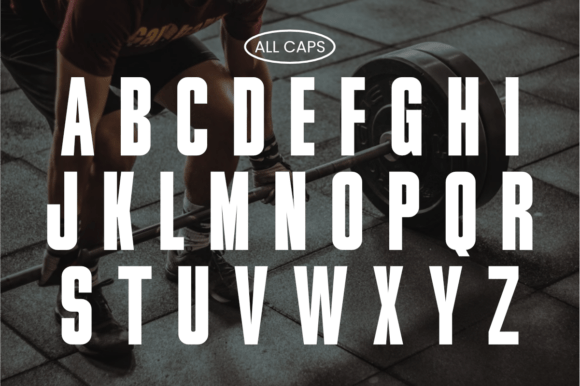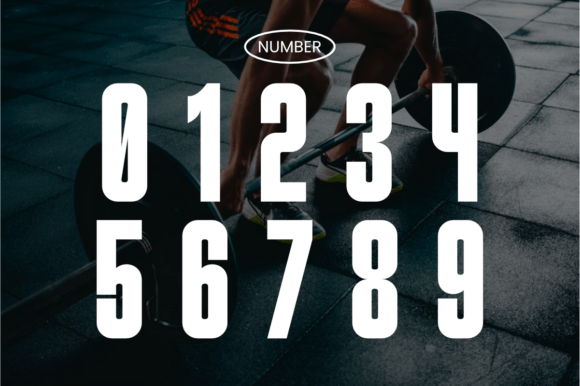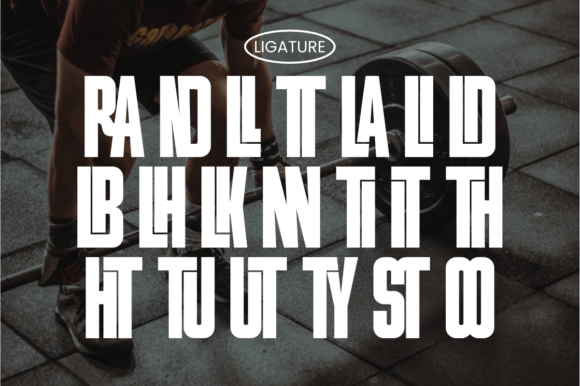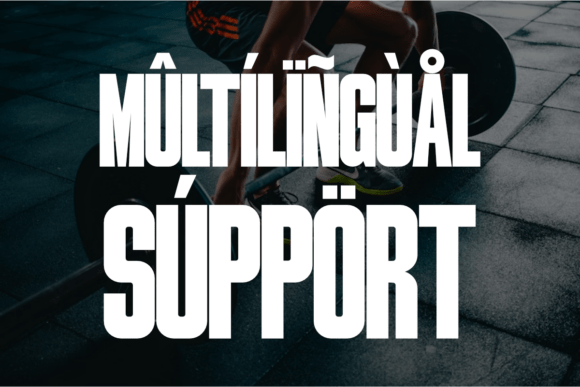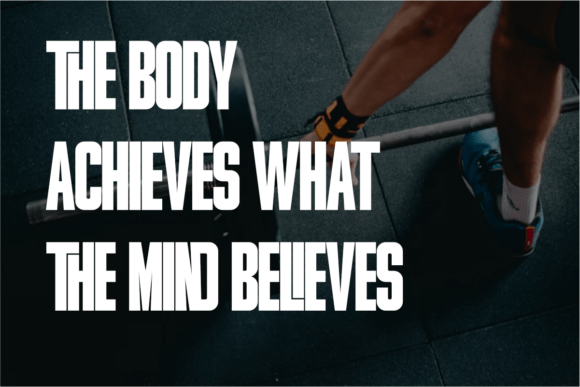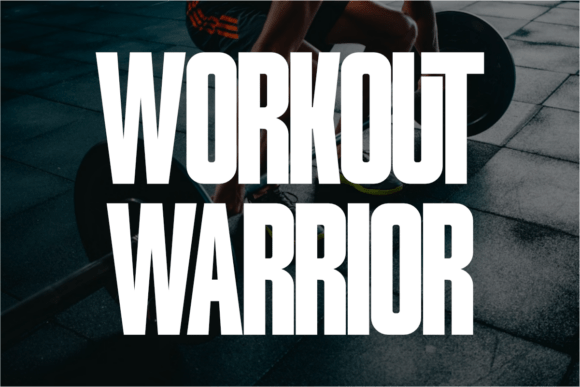
Unleash Your Creativity with the Power of Typography
Have you ever been in the midst of a creative project, pouring your heart and soul into every detail, only to feel like something’s missing? That’s when the perfect font can make all the difference. For designers and makers, the right typography can elevate a design from good to great, and that’s exactly what Brandon Font is designed to do.
Brandon Font is an ultra-condensed sans serif font that packs a punch with its bold and striking letterforms. Its tall and powerful style is perfect for making a statement in digital and print media. Whether you’re designing t-shirts, posters, logos, or branding materials, Brandon Font is the ideal choice for creating a modern and eye-catching look.
Brandon Font Key Features
- Unique Characteristics: Brandon Font is a modern sans-serif typeface, characterized by its clean lines, geometric shapes, and high x-height. It is designed to be highly legible and versatile for use in digital and print media.
- Font Weight: Light, Regular, Medium, Bold, Black
- Font Style: Brandon Font has a range of font styles, including Roman, Italic, Bold, and Bold Italic
Designer Review: Brandon Font
Overall, the Brandon Font is a decent addition to any design project. It’s a versatile font that can be used for various purposes, from headings to body text.
- ✨ Elegant and sophisticated appearance that’s perfect for luxury brands or high-end products.
- ✨ Highly legible, making it suitable for long-form content or documents.
- ✨ Supports multiple languages, including English, Spanish, French, and many others.
- ⚠️ May not be the best choice for digital displays or small screens, as it can appear pixelated or blurry.
- ⚠️ Some users may find the font too ornate or busy for certain designs.
Overall, I would give the Brandon Font 3.5 out of 5 stars. It’s a solid choice for designers who need a high-quality font for their projects, but it may not be the best fit for every design. With its elegant appearance and high legibility, it’s definitely worth considering for the right project.
Tips: Use the Brandon Font for headings and titles to add a touch of elegance and sophistication to your designs. Experiment with different font sizes and styles to create visual interest.
Tips: Use the Brandon Font for headings and titles to add a touch of elegance and sophistication to your presentations and documents.
The Brandon Font is ideal for:
- Business cards and branding materials
- Restaurant menus and signage
- Special event invitations
Alternatives to Brandon Font
Montserrat is a modern sans-serif font designed for digital use. It’s ideal for headings and titles due to its clean and geometric design. When to use: Headings, titles, and short paragraphs. Montserrat is similar to Brandon Font in its modern and sleek appearance but has a more geometric feel.
Lato is a sans-serif font with a friendly and approachable feel. It’s suitable for body text and can be used for a wide range of applications. When to use: Body text, paragraphs, and articles. Lato is similar to Brandon Font in its clean and minimalist design but has a more rounded and friendly feel.
Open Sans is a popular sans-serif font designed for digital use. It’s highly legible and versatile, making it suitable for a wide range of applications. When to use: Body text, paragraphs, and articles. Open Sans is similar to Brandon Font in its clean and modern design but has a more neutral and less distinctive feel.
Inter is a modern sans-serif font designed for digital use. It’s highly legible and versatile, making it suitable for a wide range of applications. When to use: Headings, titles, and body text. Inter is similar to Brandon Font in its modern and sleek appearance but has a more precise and technical feel.